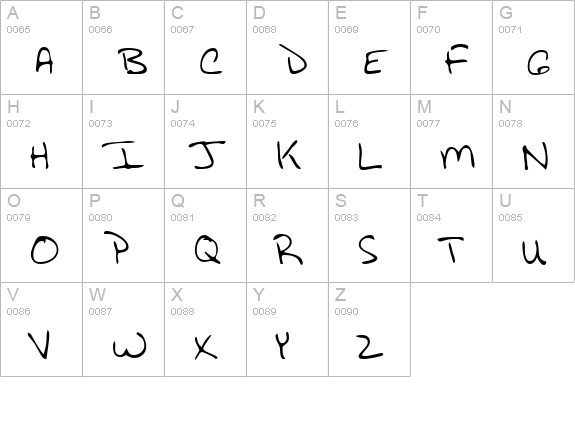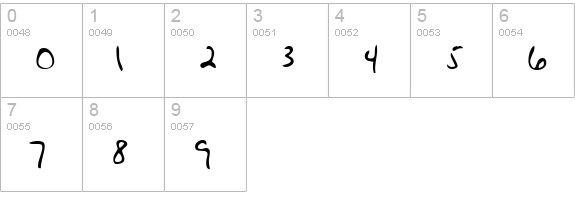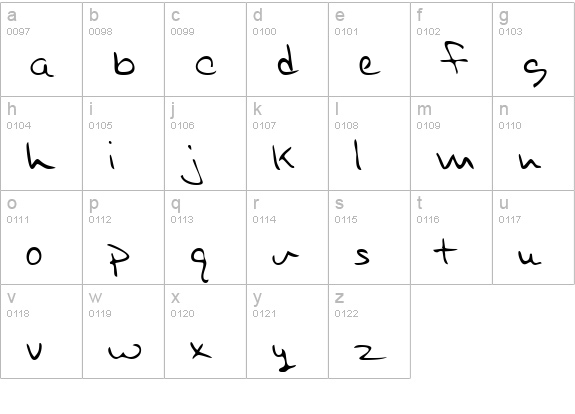
SammysHand Regular Font Details
SammysHand Regular is the standard, neutral variant in the SammysHand typeface family \xE2\x80\x94 well suited to general body text, paragraphs, and standard typographic work.
SammysHand Regular font is a delightful and playful typeface that will add a touch of whimsy to any project. Its charming and hand-drawn appearance is perfect for capturing a friendly and approachable vibe. With its smooth curves and fluid letterforms, this font exudes a sense of warmth and creativity. The free version of SammysHand Regular font is a true gem for designers and creatives alike. It's not just a font; it's a creative tool that invites you to bring your ideas to life. Whether you're designing a logo, creating a poster, or crafting a personalized invitation, this font will elevate your designs and make them truly stand out. SammysHand Regular font is freely available to download at FontsMarket.com, a trusted source for high-quality fonts. By offering this font for free, its creators have made it accessible to everyone, regardless of their budget. This means that you can enjoy the benefits of this beautiful font without breaking the bank. The versatility of SammysHand Regular font is another reason to love it. It can be used in a wide range of design projects, from branding and packaging to social media graphics and website design. Its unique style and character will instantly grab attention and make a lasting impression on your audience. Whether you're a professional designer or a hobbyist, SammysHand Regular font is a must-have in your font collection. Its free availability, combined with its exceptional quality and versatility, make it a valuable asset for any creative endeavor. So why wait? Head over to FontsMarket.com and download this amazing font today!